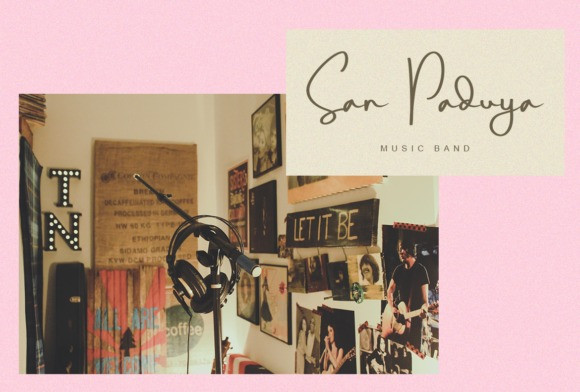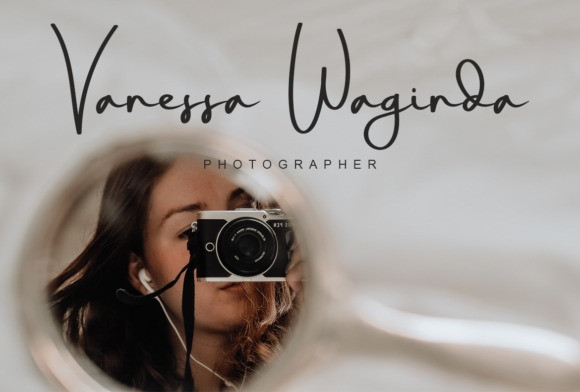
Wina aprilina Calligraphy Font
wina aprilina is a beautiful script font that really good for water mark, logotype, advertisement, social media posts, product packaging, clothing design and more.